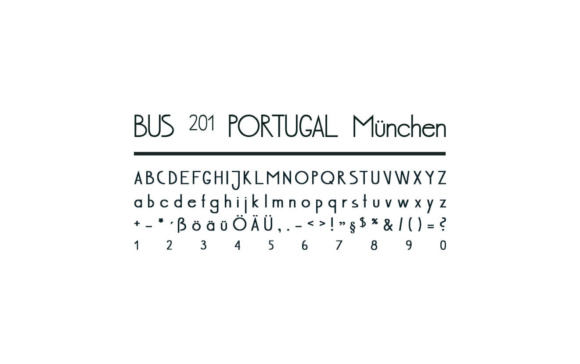
Hop aboard the Bus 201 Portugal München, a font family where creativity meets versatility. This sans serif typeface, conceptualized by the artistic mind of frohwein.daniel.muenchen, carries the essence of an art project called "Walk the Web." Each letterform is a stroke of genius, born from the vibrant streets of Munich.
Unleash your imagination and embark on an artistic journey with Bus 201 Portugal München. Transform your designs into captivating expressions of elegance and impact. Let your words dance across the screen, leaving a trail of visual intrigue.
This font family is your passport to a world of artistic possibilities. Explore a diverse spectrum of applications, from branding and marketing materials to web design and social media graphics. Its versatility knows no bounds, allowing you to craft designs that resonate with audiences across industries.
The clean lines and crisp edges of Bus 201 Portugal München bring a touch of sophistication to your creations. Its characters exude a sense of modernity, making it an ideal choice for projects that demand a contemporary aesthetic.
But don't let its sleek appearance fool you. Bus 201 Portugal München possesses a playful charm that invites experimentation. Infuse your designs with a touch of whimsy and delight. Let the curves and angles of this font spark conversations and leave a lasting impression.
Step into a world of boundless creativity with Bus 201 Portugal München. Let your imagination soar as you craft designs that captivate and inspire. Embrace the artistic spirit embedded in every letterform and embark on a journey of visual storytelling.